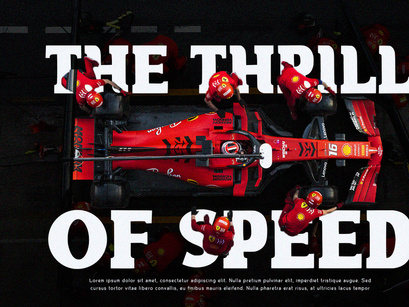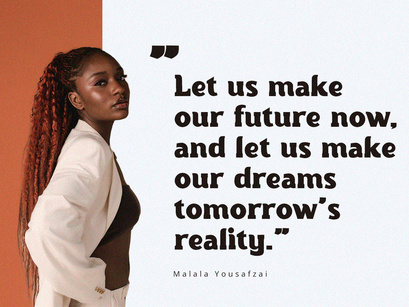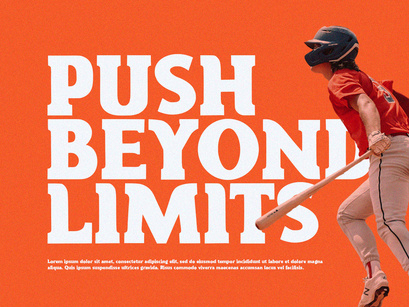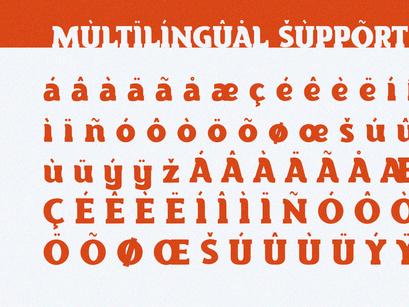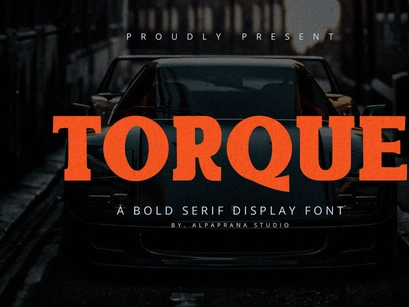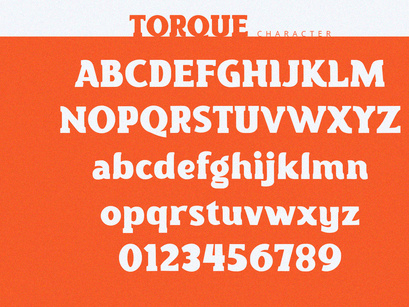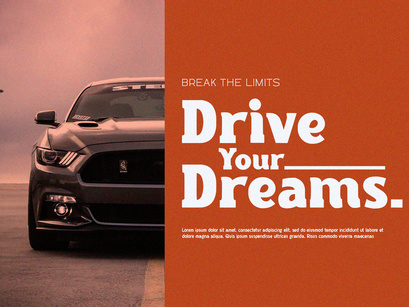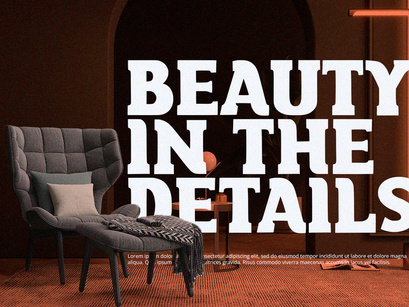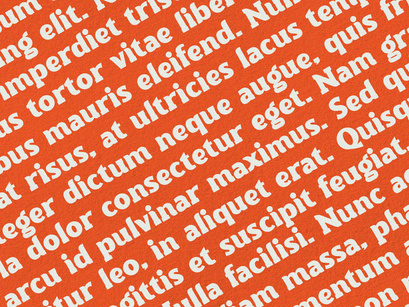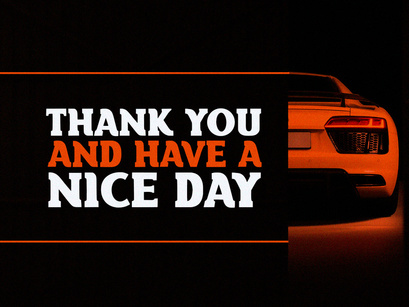
Torque - Serif FontPremium
Torque is serif display font with modern feels. It will be perfectly used for Branding, Logo Design, Lettering, Logotype, Clothing, Poster, magazine, packaging, posters, shopping bags, t-shirts, book covers, photography, special events and other design project.